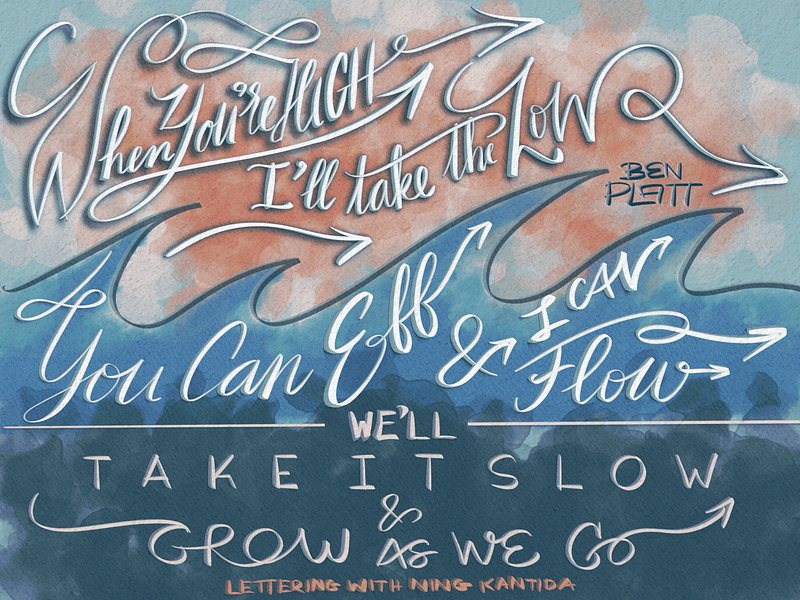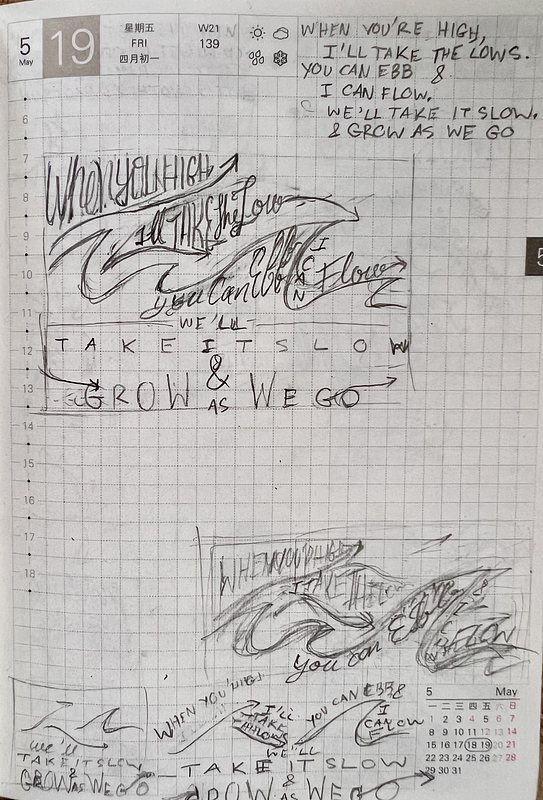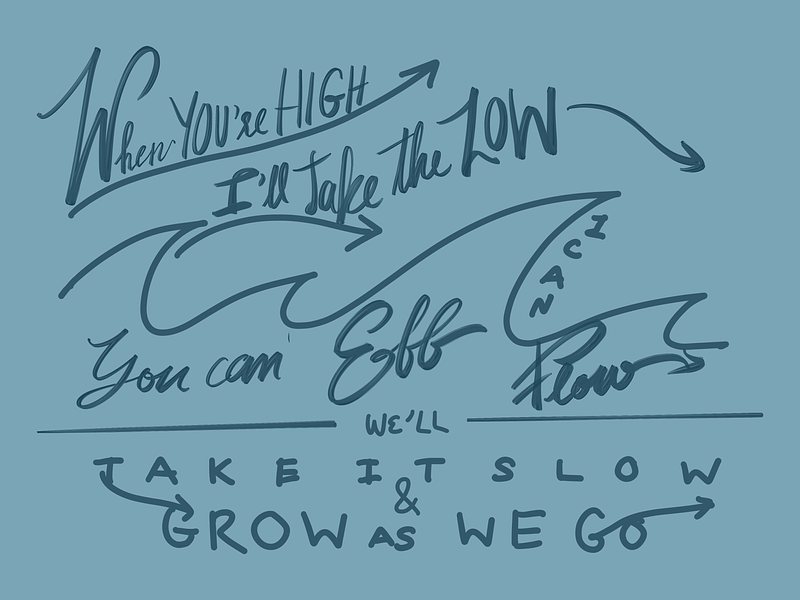
This is the lettering piece based on the song Grow As We Go by Ben Platt
The lettering piece based on the song Grow As We Go by Ben Platt
The Inspiration
Combining Ben Platt’s divine voice with the wonderful lyrics, and you get one of the most beautiful songs ever. I appreciate the message of "Grow As We Go". You don’t have to grow alone; you should allow people to grow together with you so that you can have each other’s backs.
I don't think you have to leave If to change is what you need You can change right next to me When you're high, I'll take the lows You can ebb and I can flow And we'll take it slow And grow as we go Grow as we go
The Process
Even before starting, I had the design in mind, so it was a relatively easy task today.
The challenging part, however, was creating a composition that could balance well between legibility and the flow of letters. I experimented with a few versions before settling on the final iteration.
After realizing I had been using too many brushes in one design, I decided to limit myself to using only one brush. Instead, I focused on brush rotation and pressure today.
I wish I could have experimented more with colors and textures, but I ran out of layers multiple times and was too tired to battle with the app. Not bad for a 2-hour work, though.
Lessons Learned: Stick with one brush until you feel it won't work before trying another one. Also, next time, please remember to leave space for page margins! Negative space matters!! And god dang it! I messed up the lyrics again!! LMAO